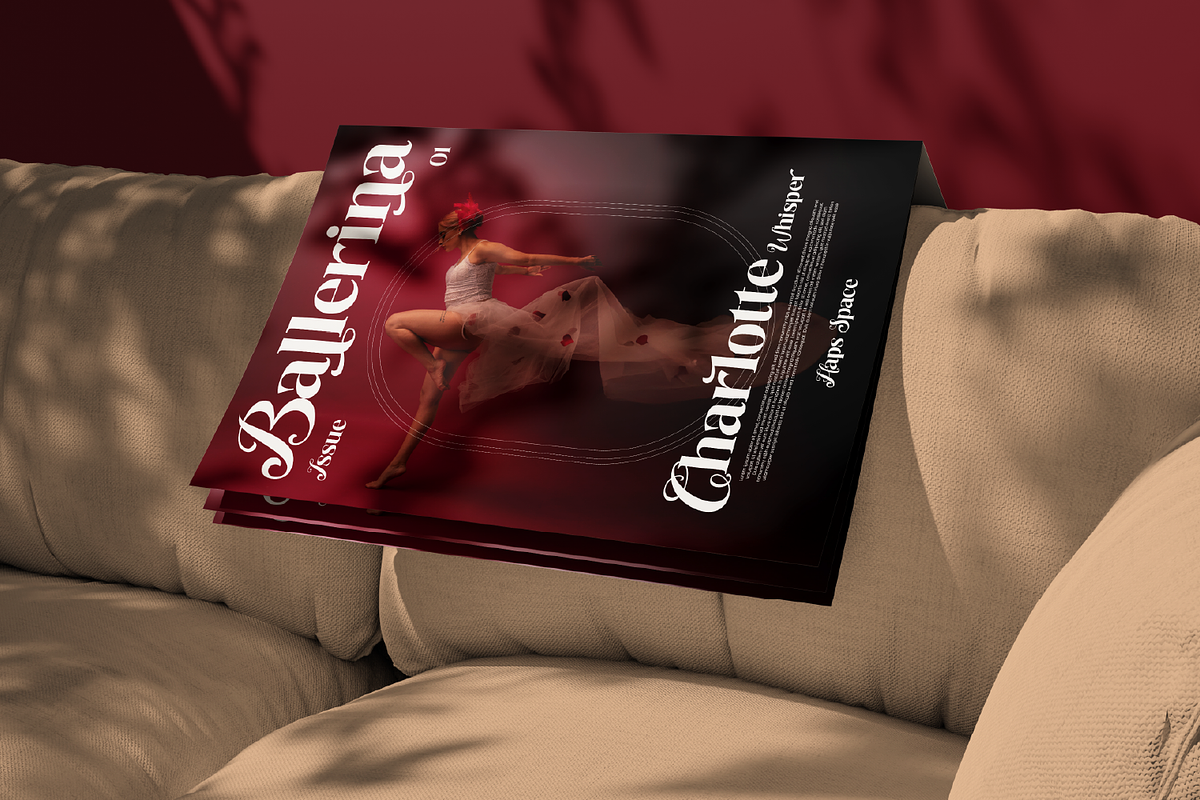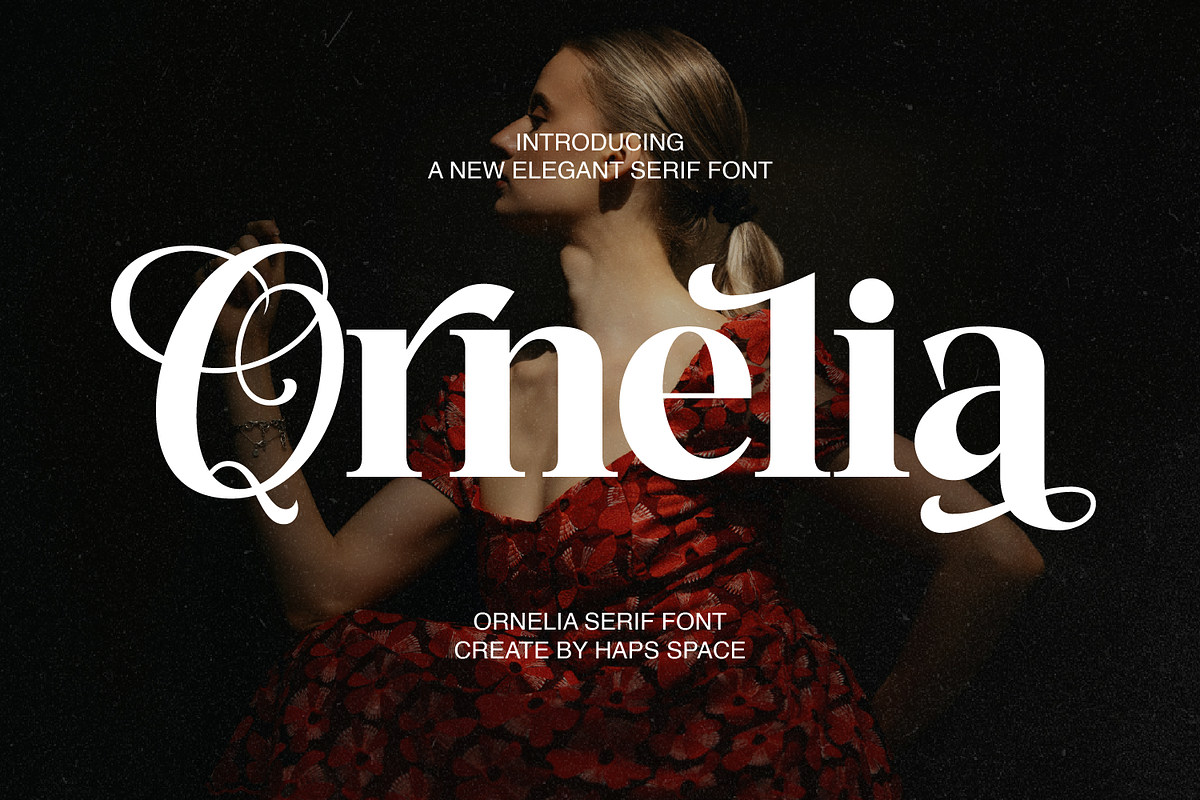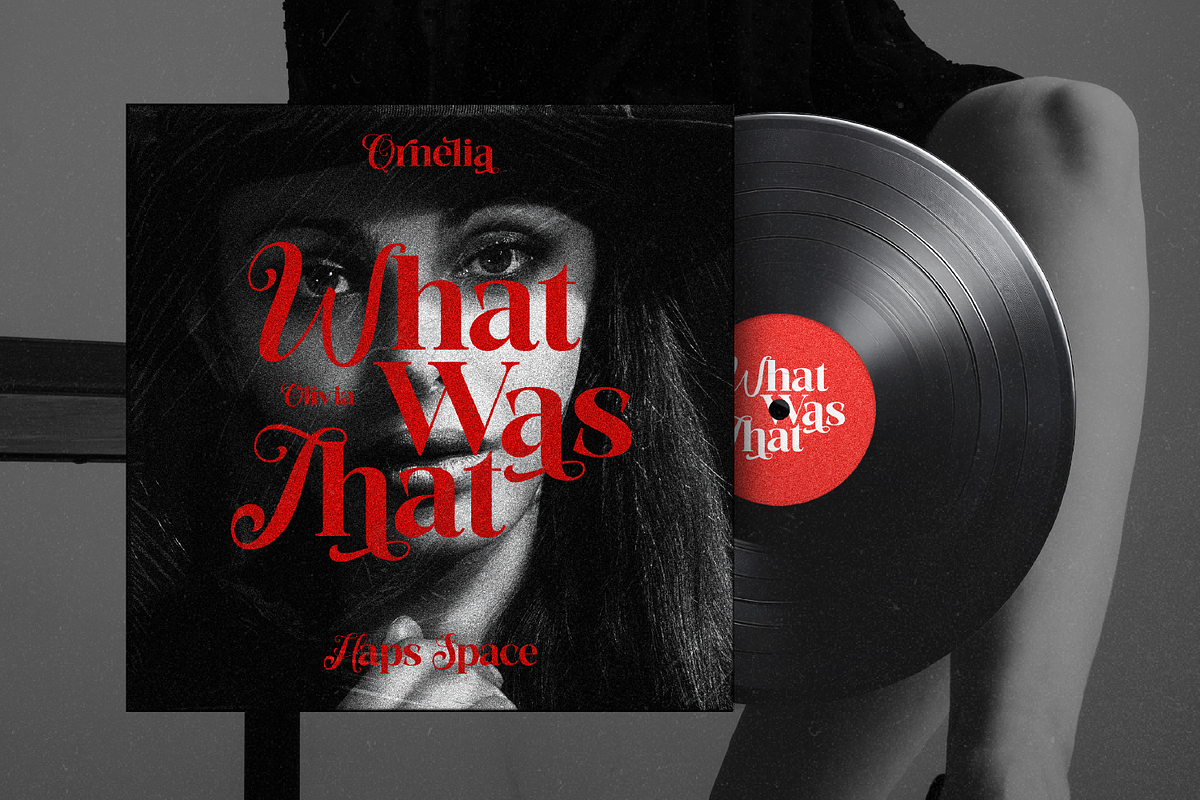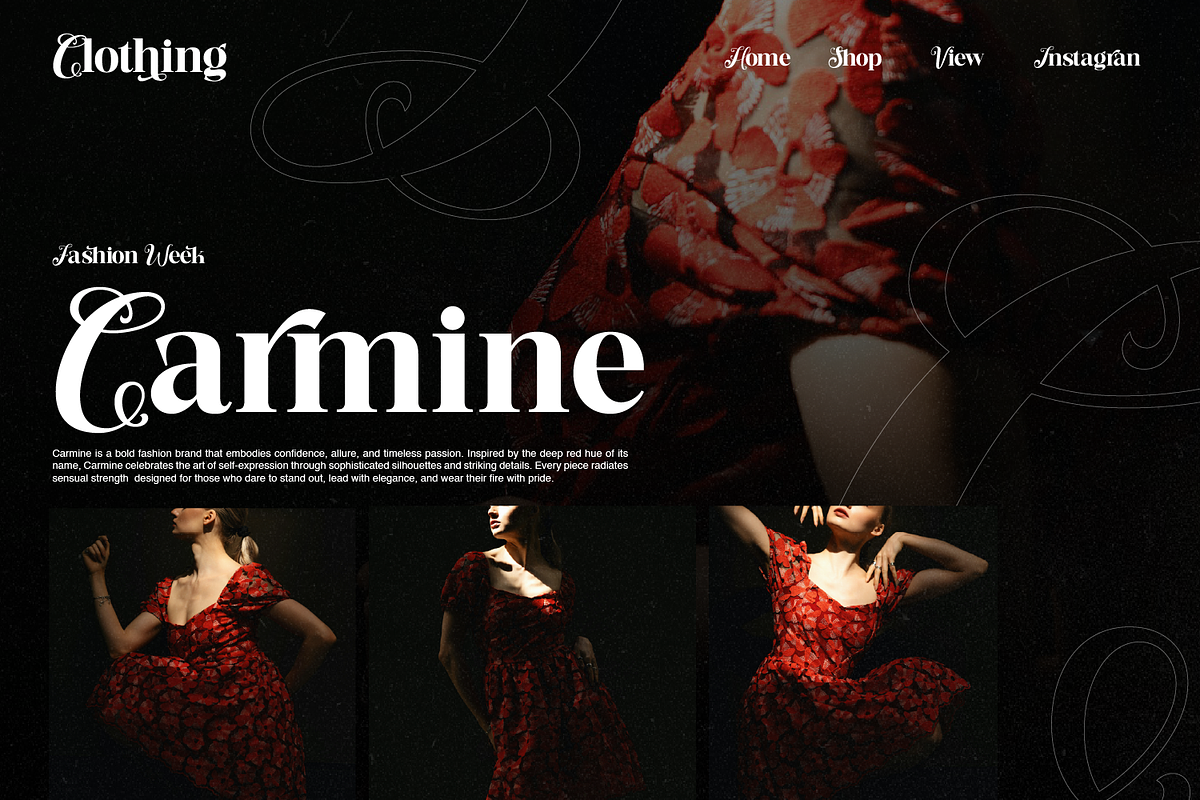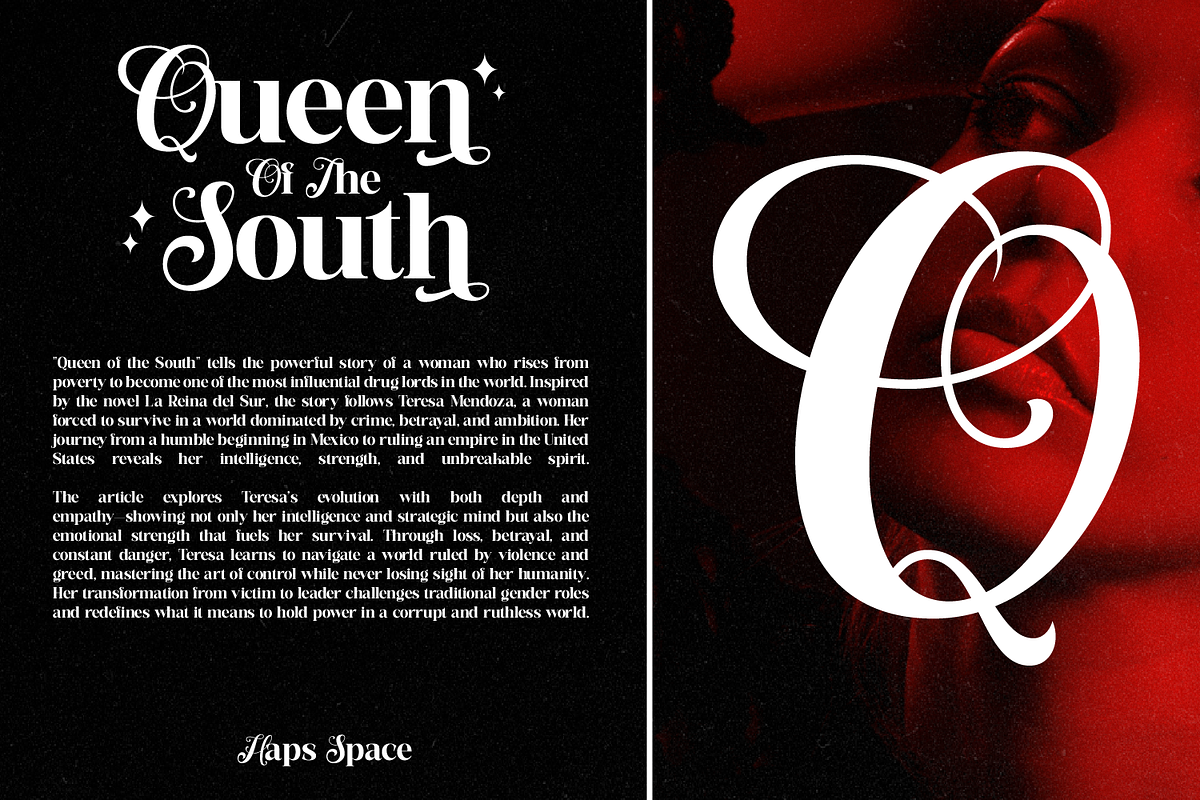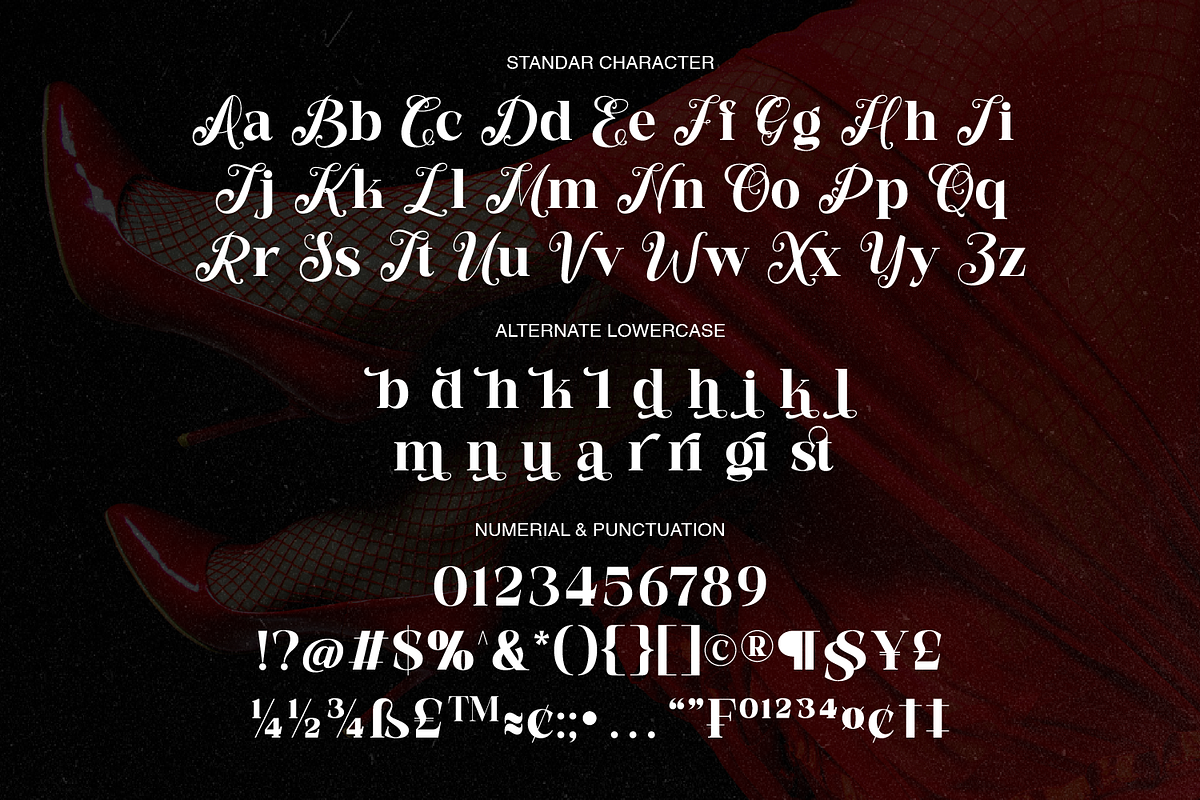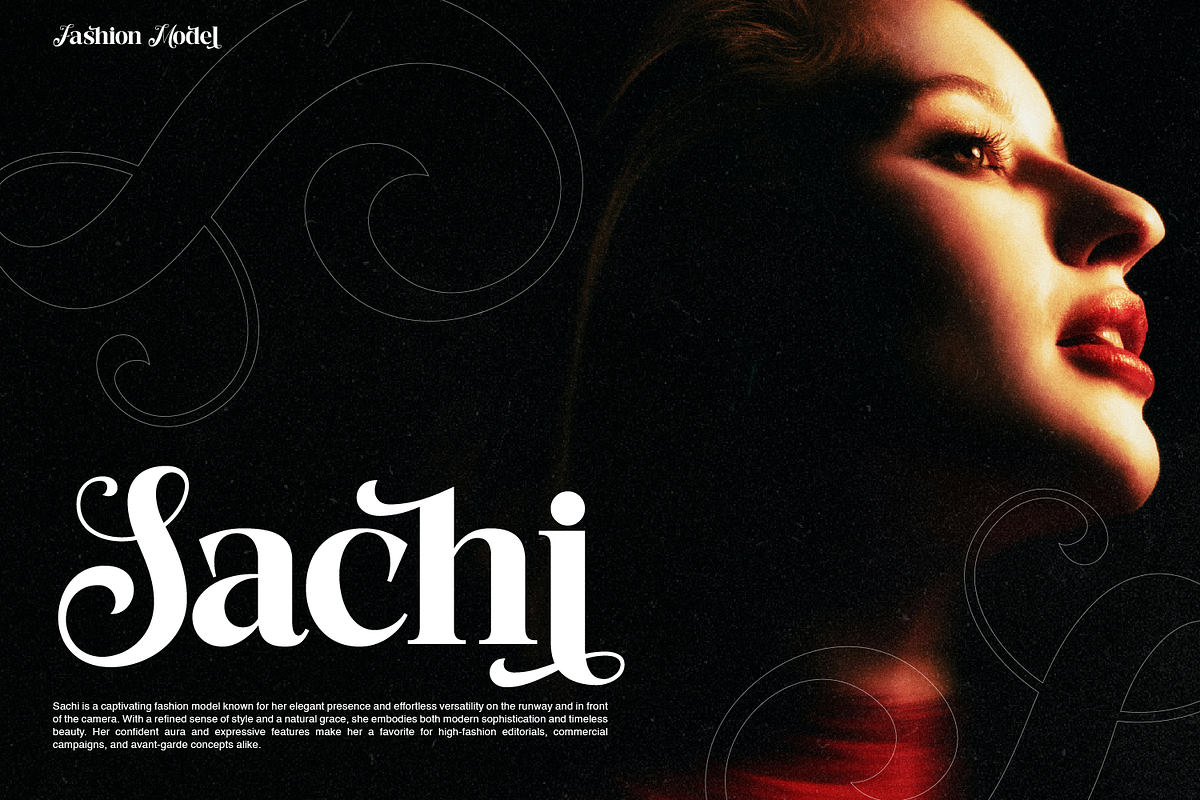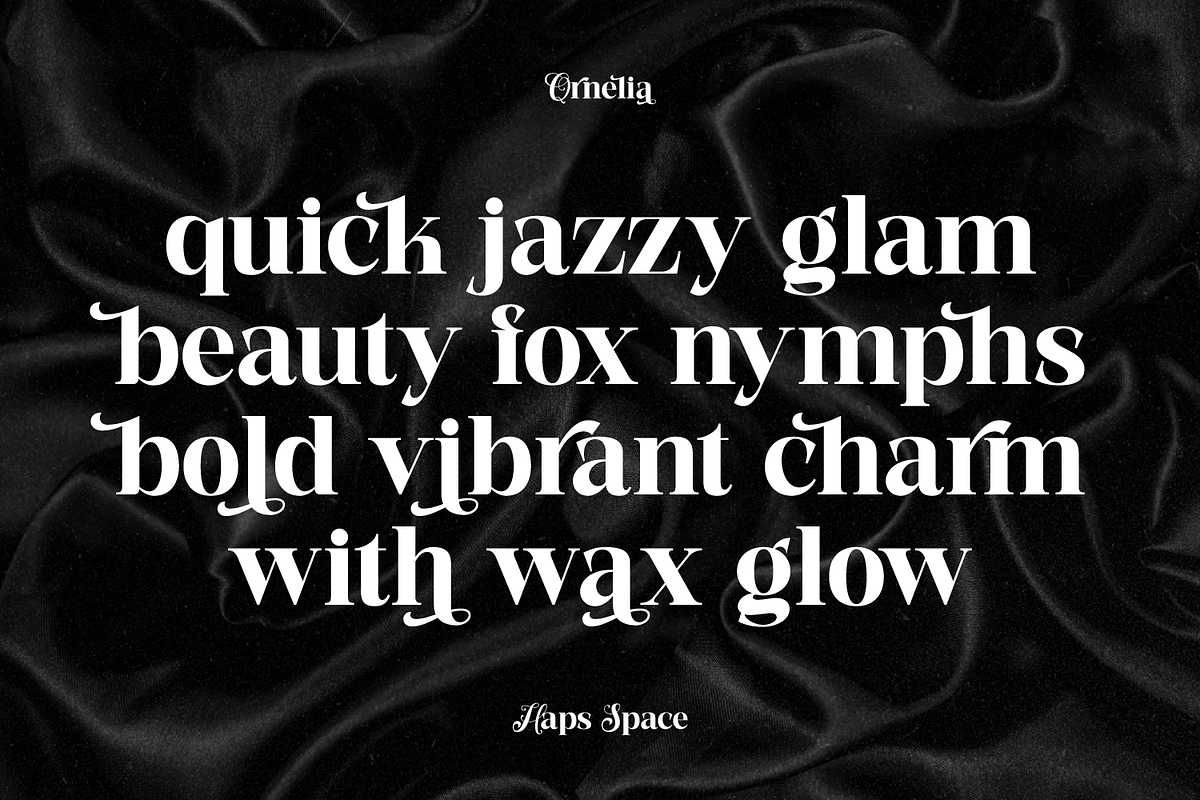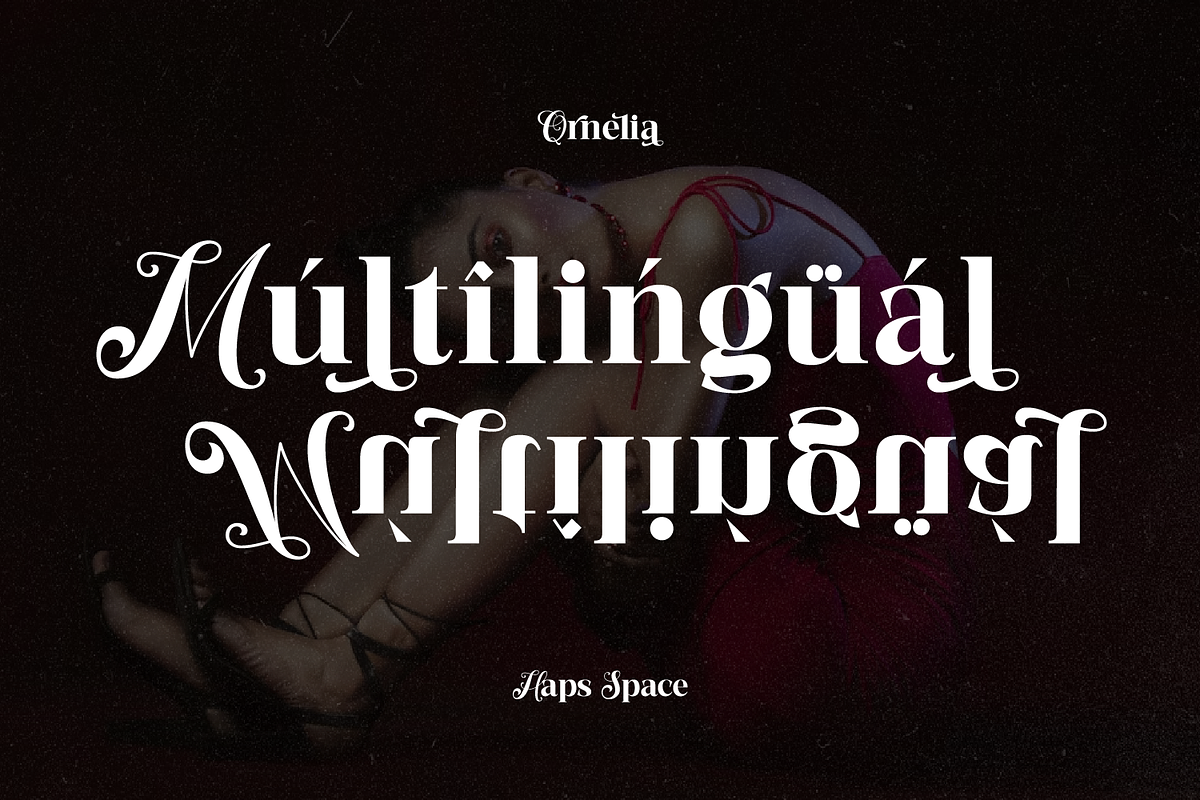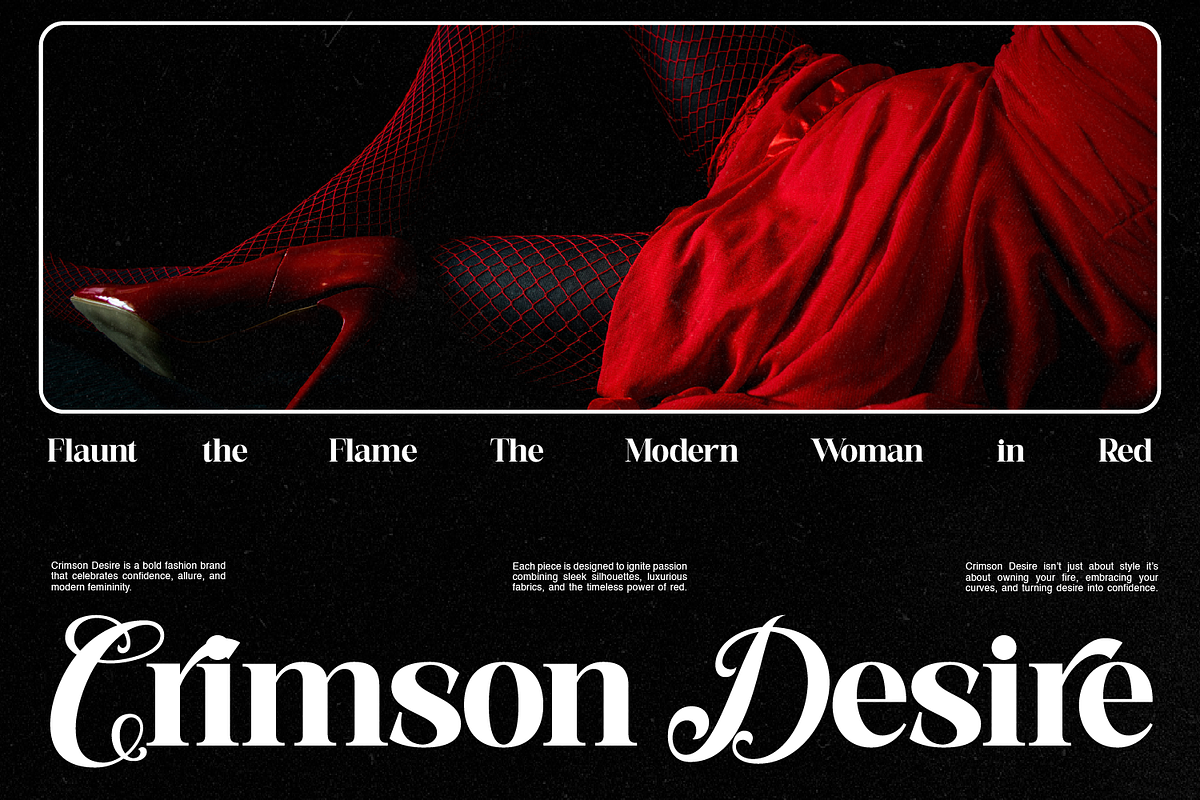
Ornelia Elegant Serif
Ornelia is an elegant serif font that blends classic sophistication with a modern luxurious touch. Designed with high-contrast strokes, refined curves, and beautifully crafted letterforms, Ornelia delivers a timeless aesthetic that instantly elevates any design. Its distinctive character is enhanced by stylish alternates and graceful swashes, making it perfect for creating visually striking and premium compositions.
With its balanced proportions and artistic details, Ornelia is ideal for projects that require elegance and class. Whether used for headlines or branding, this font adds a sense of exclusivity and refinement that captures attention effortlessly.
- Elegant serif style with high contrast
- Decorative alternates and stylish swashes
- Smooth curves and refined letterforms
- Classic yet modern appearance
- Perfect readability for display purposes
- Multilingual support (if included)
- Uppercase & lowercase characters
- Punctuation and symbols
Ornelia is perfect for a wide range of high-end and creative applications, such as:
- Luxury branding and logo design
- Fashion editorials and magazines
- Wedding invitations and stationery
- Beauty and cosmetic packaging
- Social media and marketing materials
- Website headers and hero text
- Photography branding
- Elegant posters and typography art
Ornelia brings a graceful and premium feel to any project, making it the perfect choice for designers who want to create a strong, stylish, and unforgettable impression.